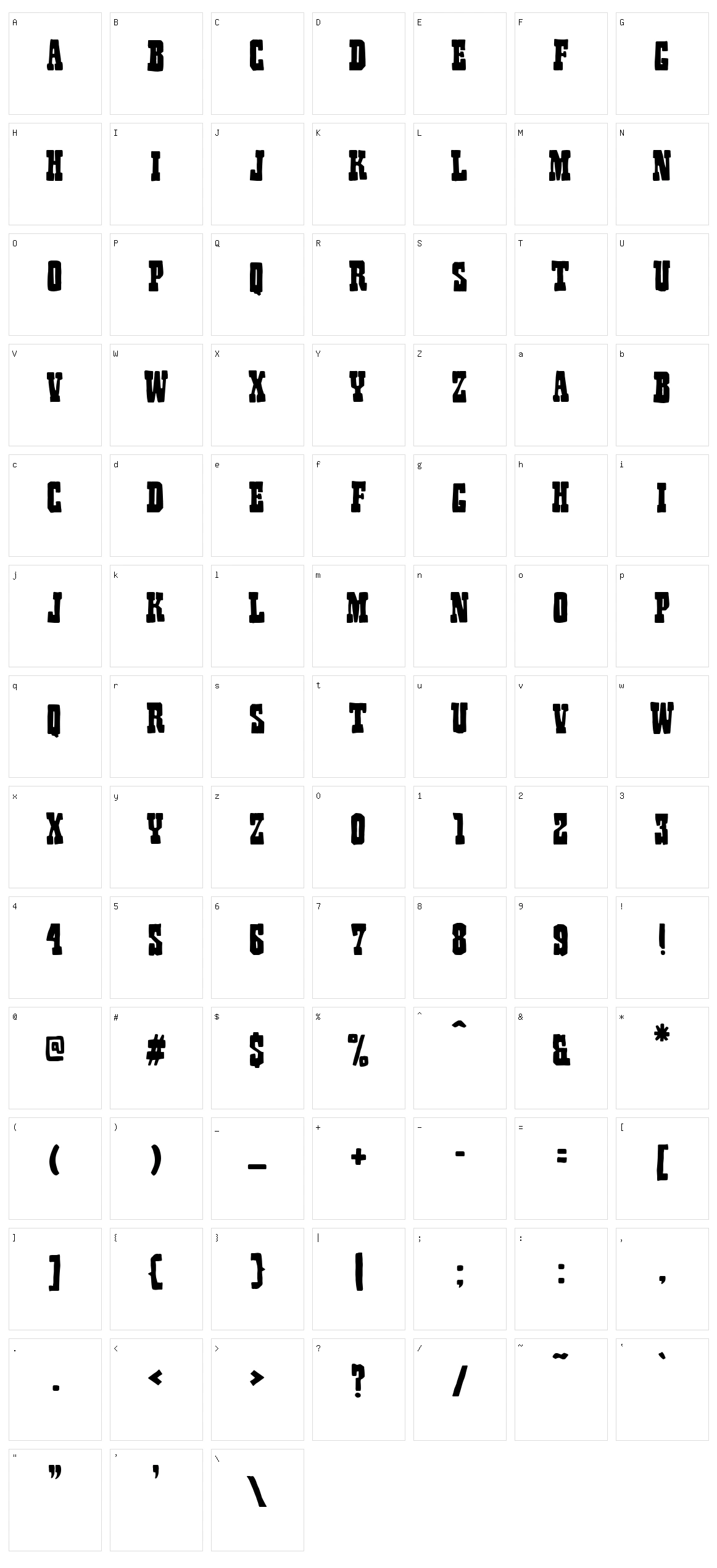
The free font Dead Again is carefully designed by Woodcutter, showcasing a thoughtful balance of creativity and usability and falls under the Western font style. When you download the ZIP file, it contains only 52.6 KB of font files, making it lightweight and quick to download. Please review the license details below to understand permitted usage and distribution rights. If license information is not available, we recommend using this font for personal projects only or contacting the author directly for commercial usage permissions.